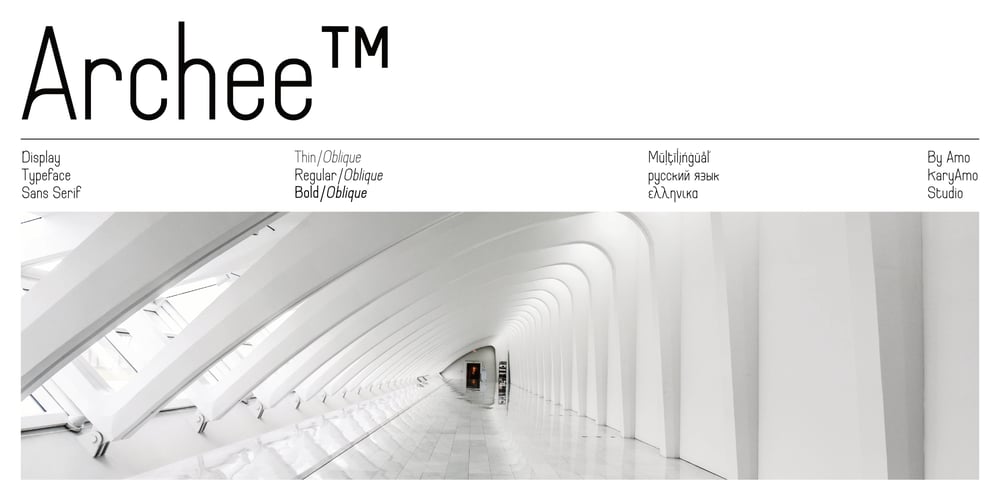
Archee Font Family was designed by Amar Arif and published by KaryAmo Studio. Archee contains 6 styles and family package options. Introducing Archee™ – Display Sans Serif FontArchee™ is a typeface that inspired by modern architecture. Designed for screen and medium sizes.It has 3 different weights and this font also featured with ligatures. Archee cover more than 20 languages including russian and greek.**FEATURES**- Uppercase & Lowercase letters- Numbering and Punctuations- Ligatures- Multilingual Support- Works on PC or Mac- Simple Installation- Support Adobe Illustrator, Adobe Photoshop, Adobe InDesign, also works on Microsoft Word.**All images on the demo is just for preview purpose only and not actually included on the files**Hope you Like it.Thanks.